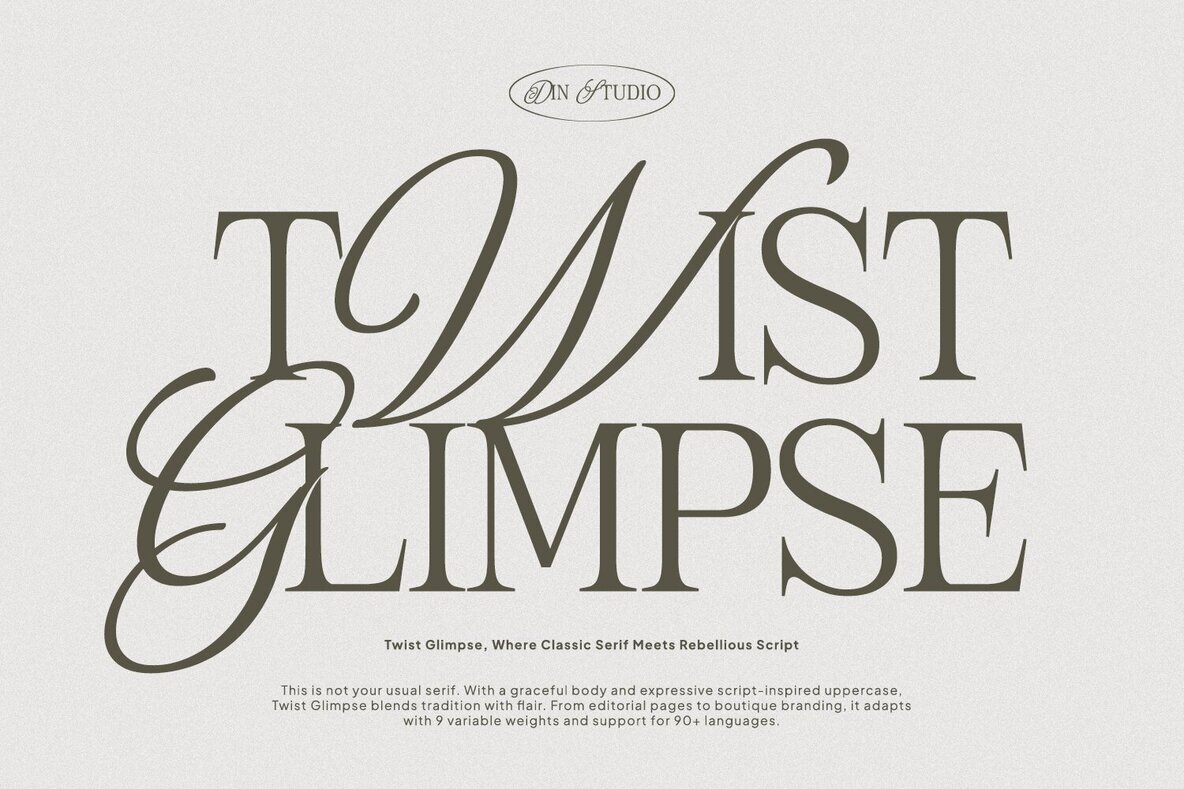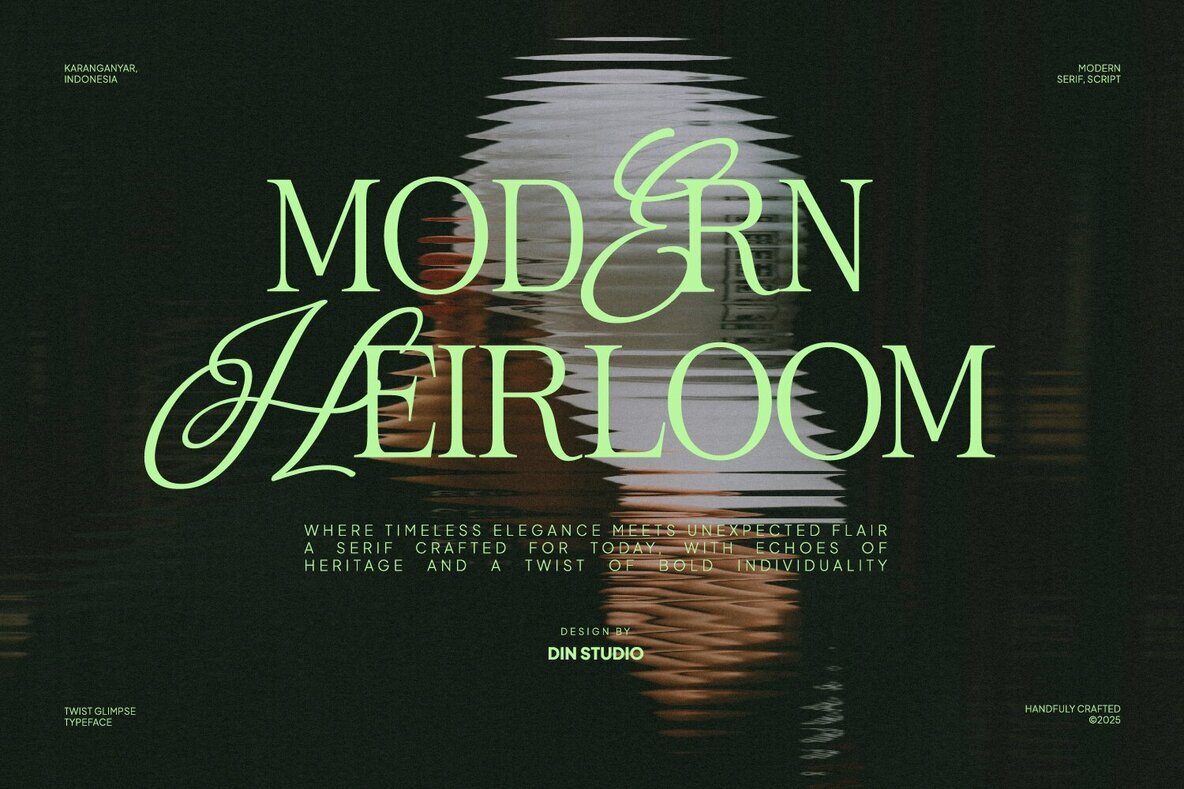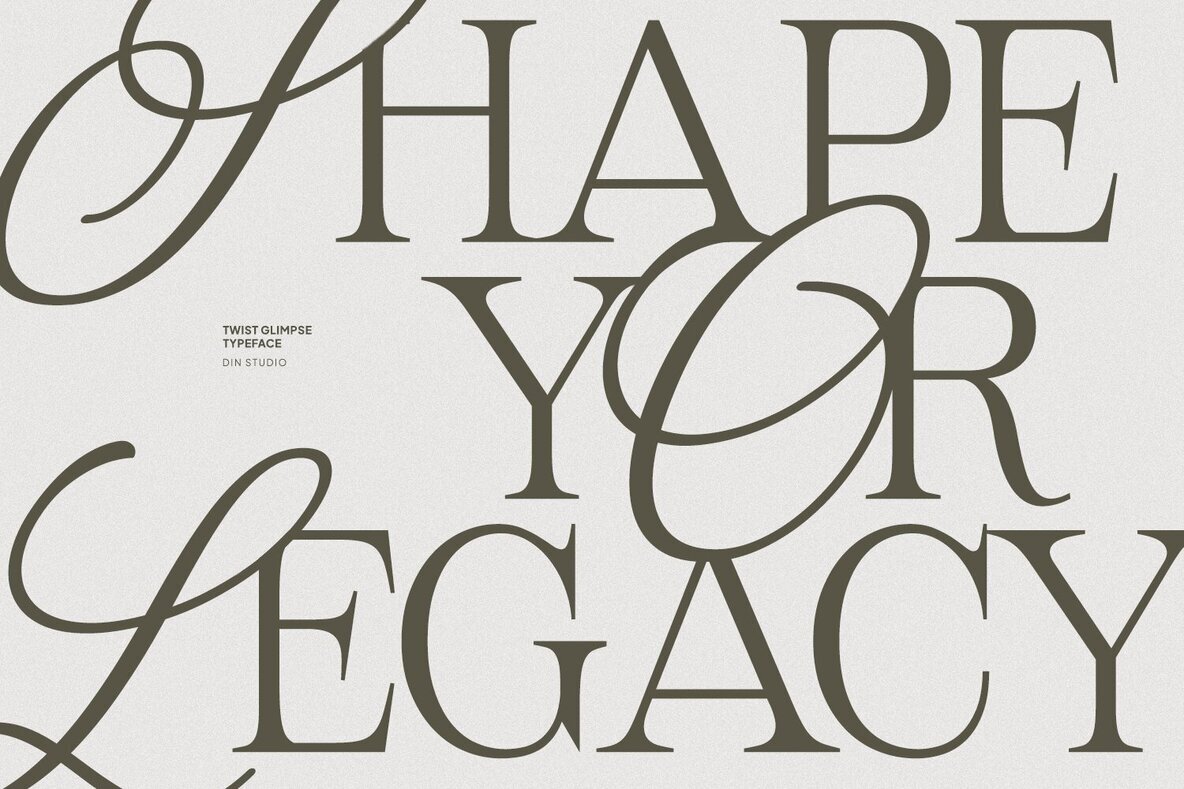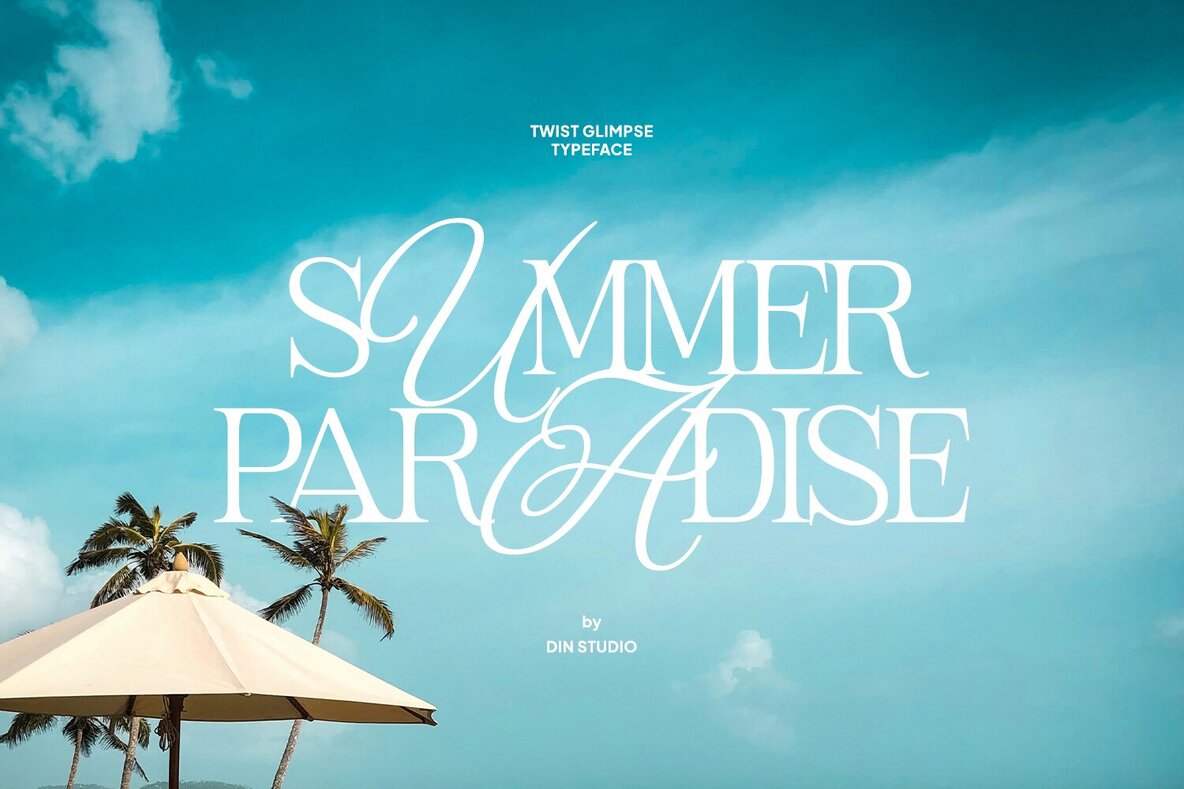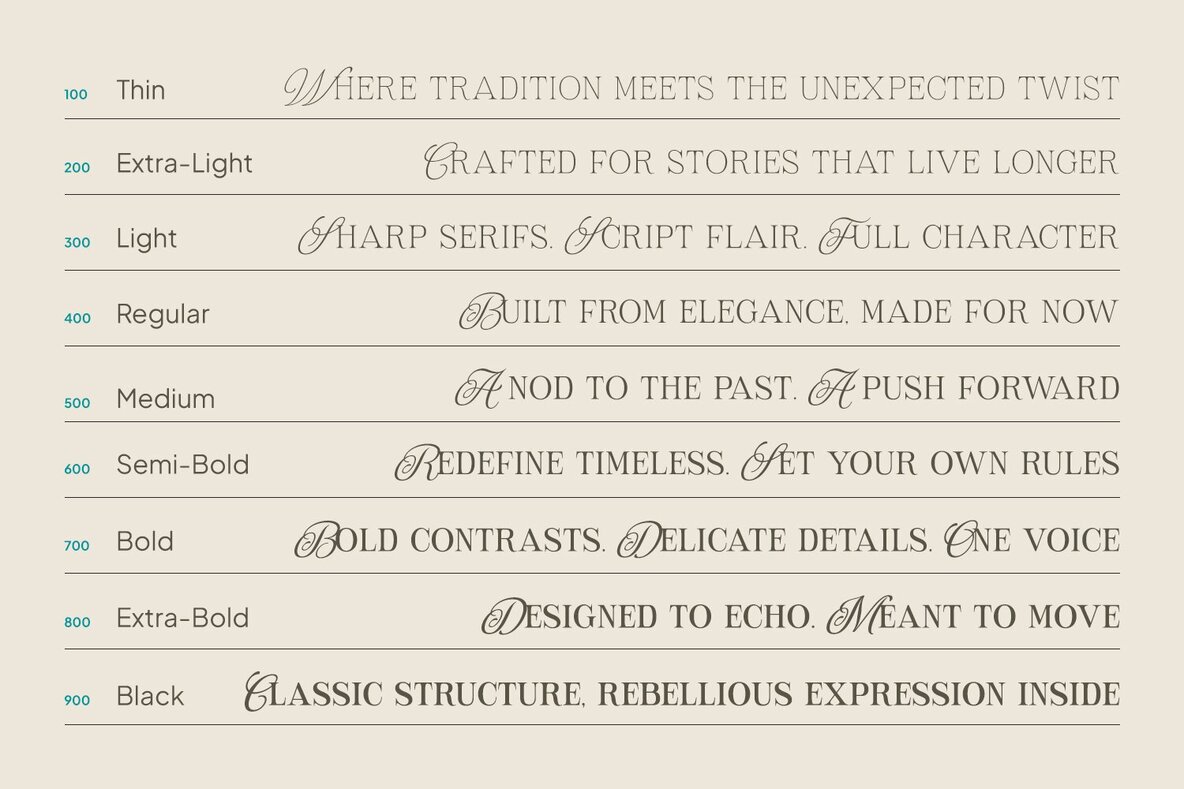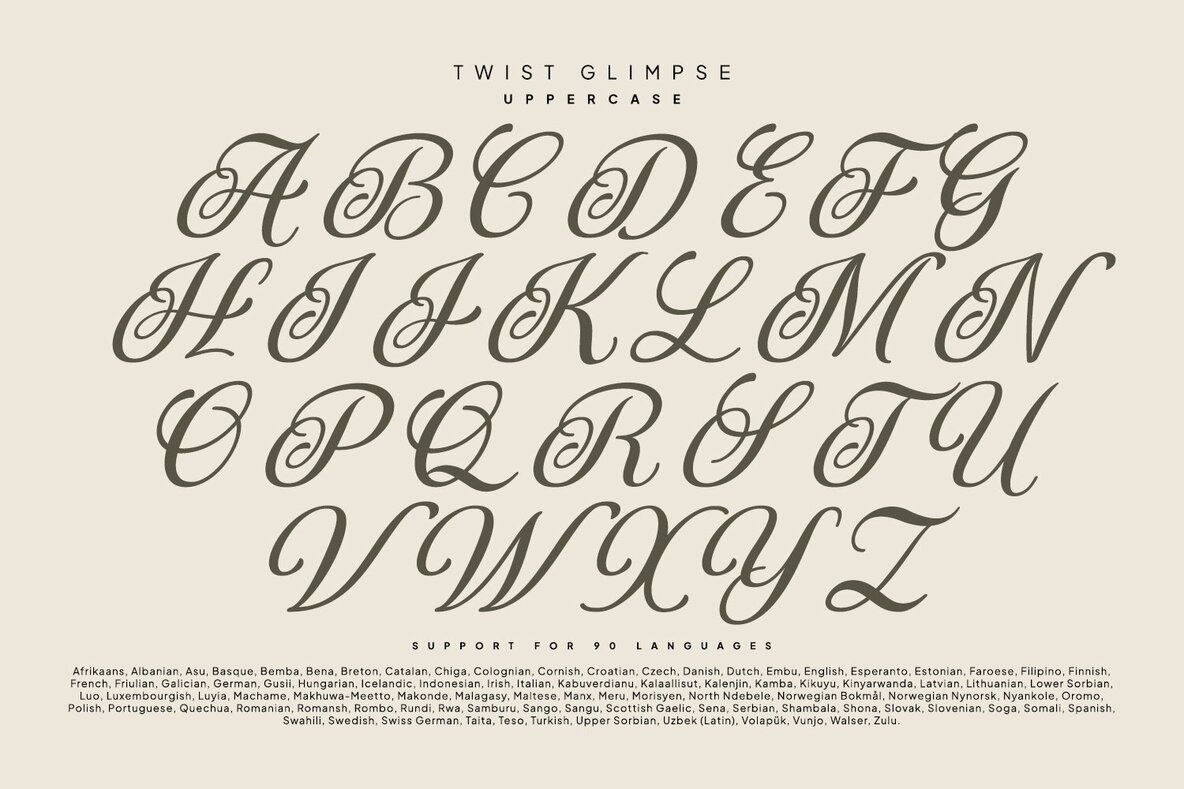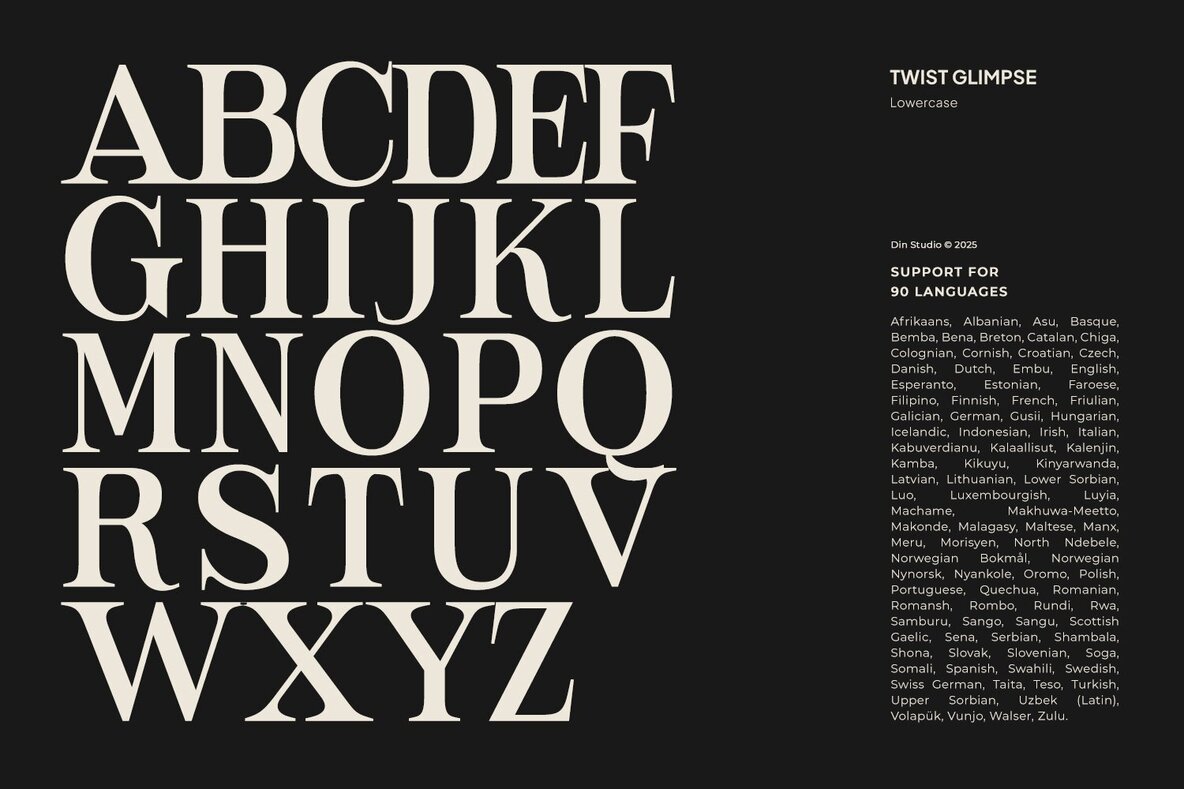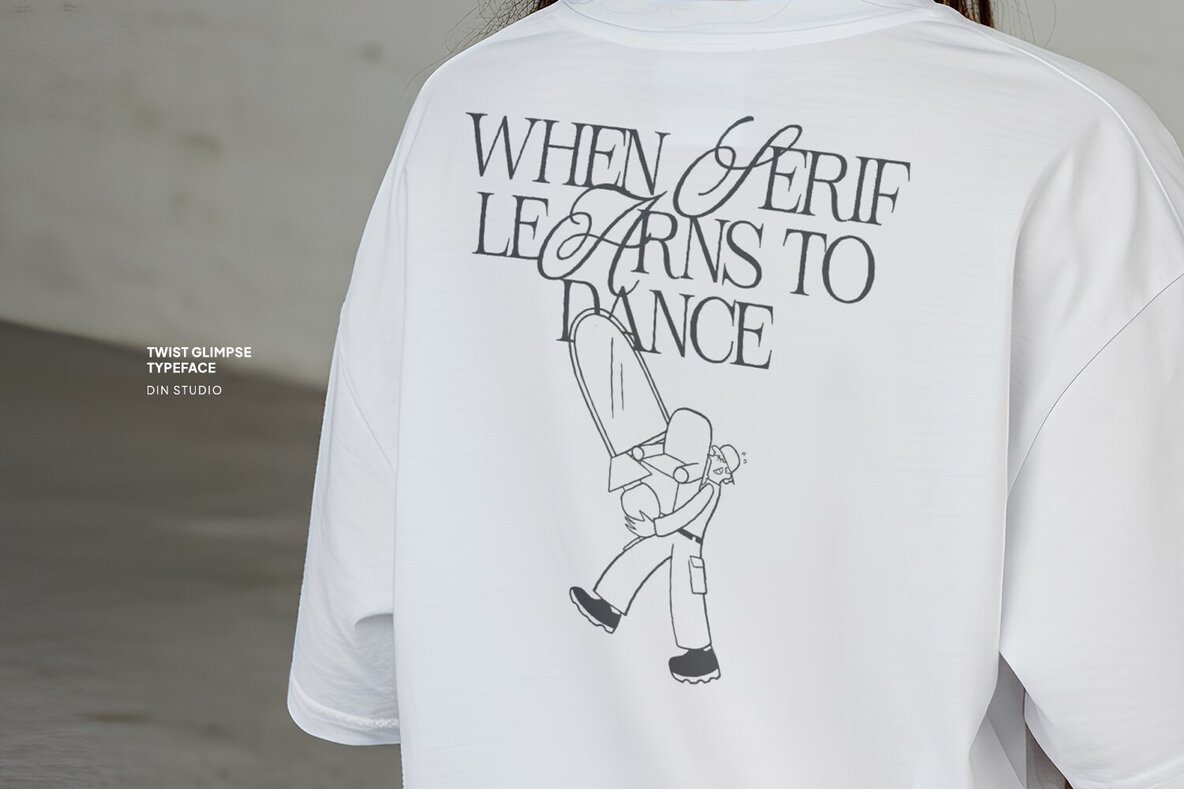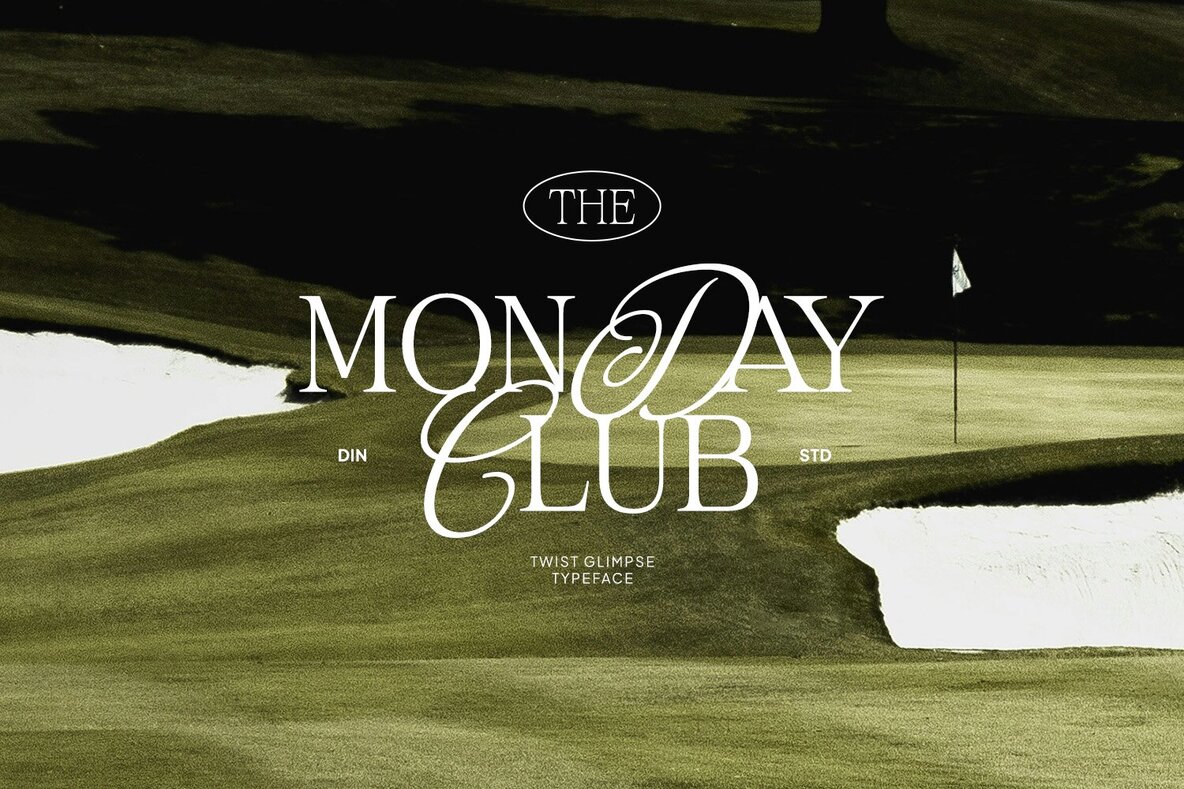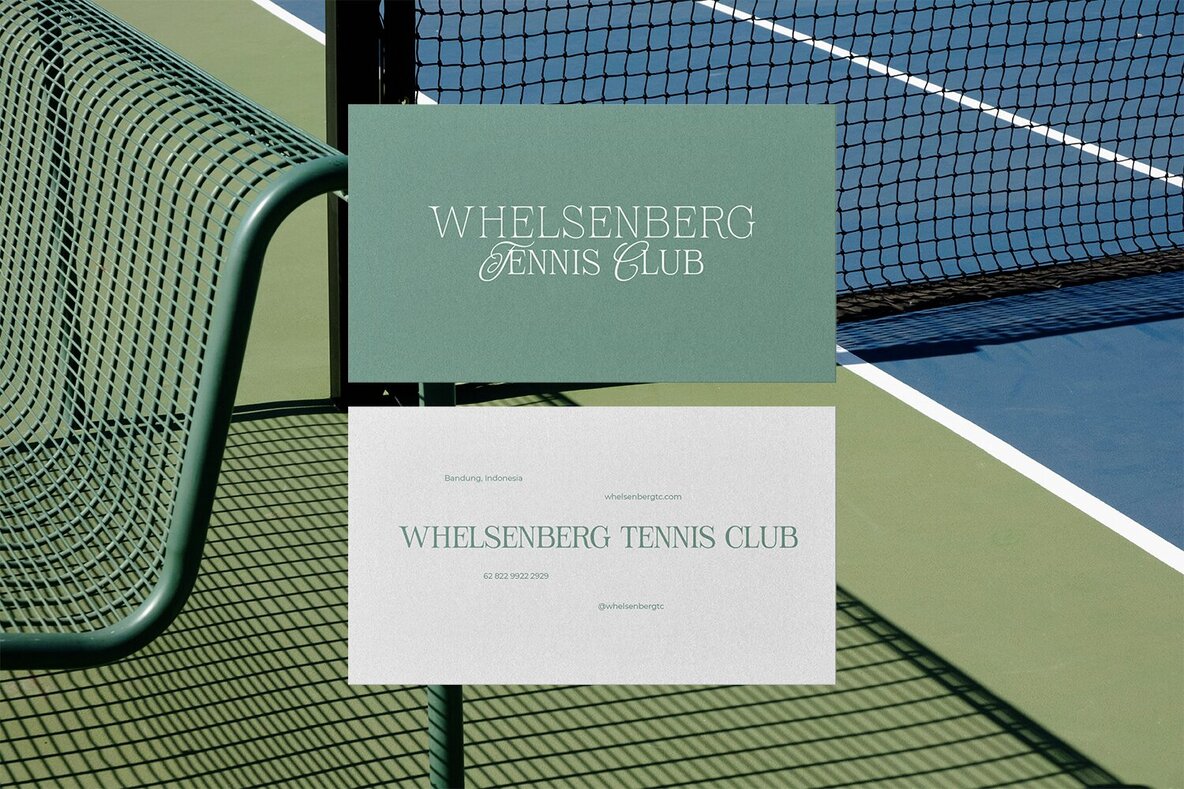
Twist Glimpse Font
The Twist Glimpse font duo presents a captivating meld of classic serif and bold script, each designed in uppercase to achieve visual harmony. The serif font exudes timeless elegance, providing structure and sophistication. In contrast, the rebellious script infuses the design with dynamic, expressive strokes, introducing a free-spirited flair. This juxtaposition of tradition and attitude ensures a perfectly balanced typographic experience. Features: Twist Glimpse is ideal for a variety of applications including name cards, branding, packaging, posters, and editorial designs. Dive into the font preview to explore further creative possibilities with this unique typographic pairing.Twist Glimpse: A Bold Serif and Script Fusion